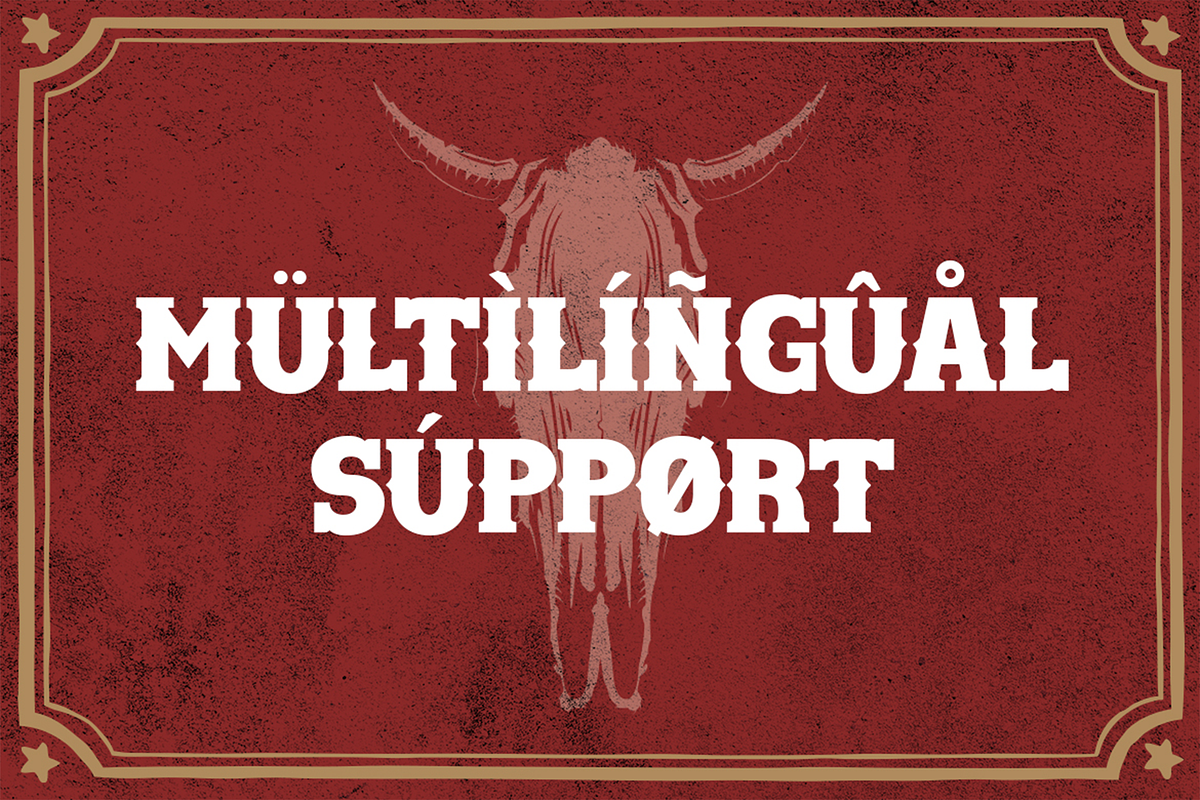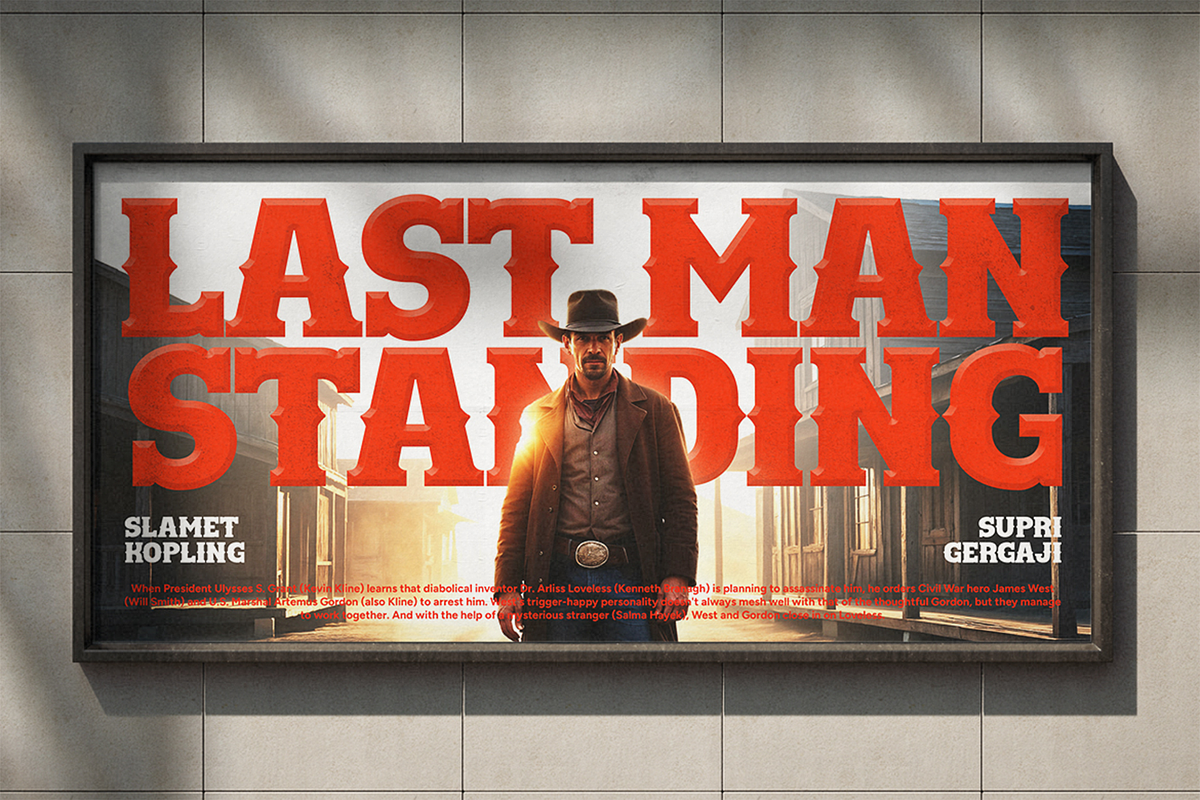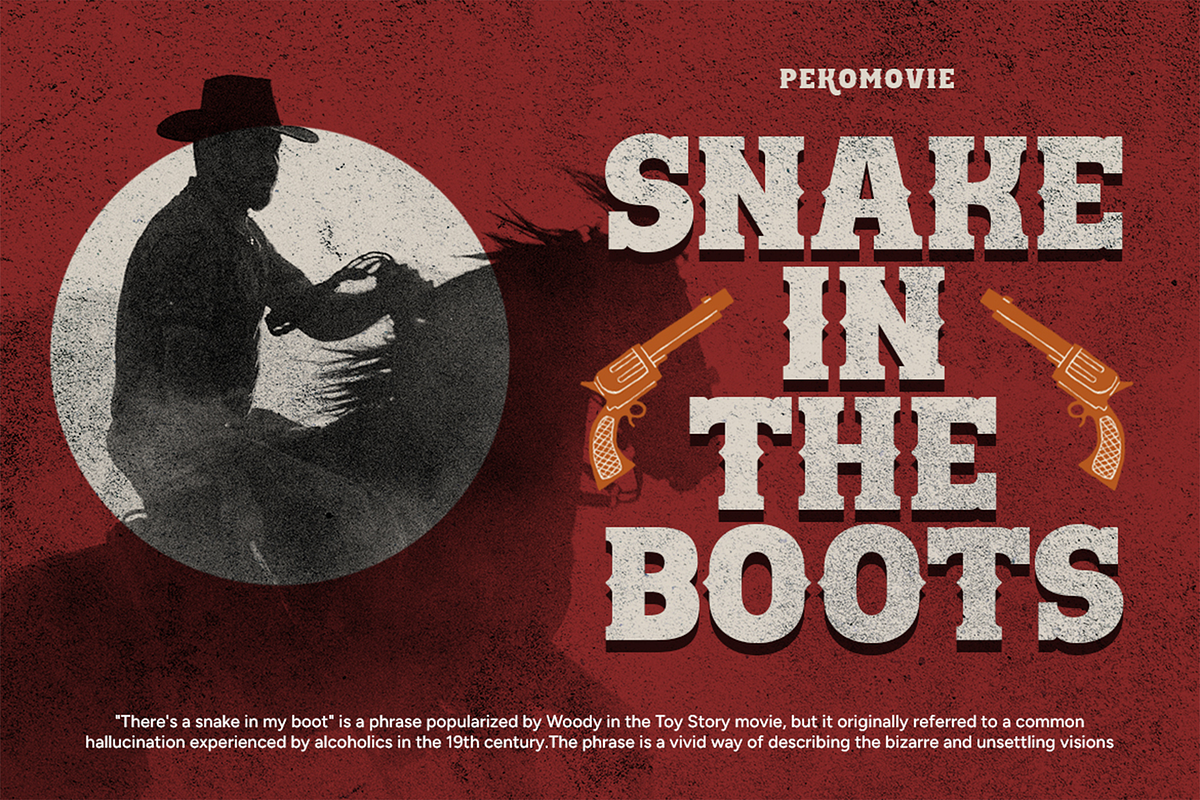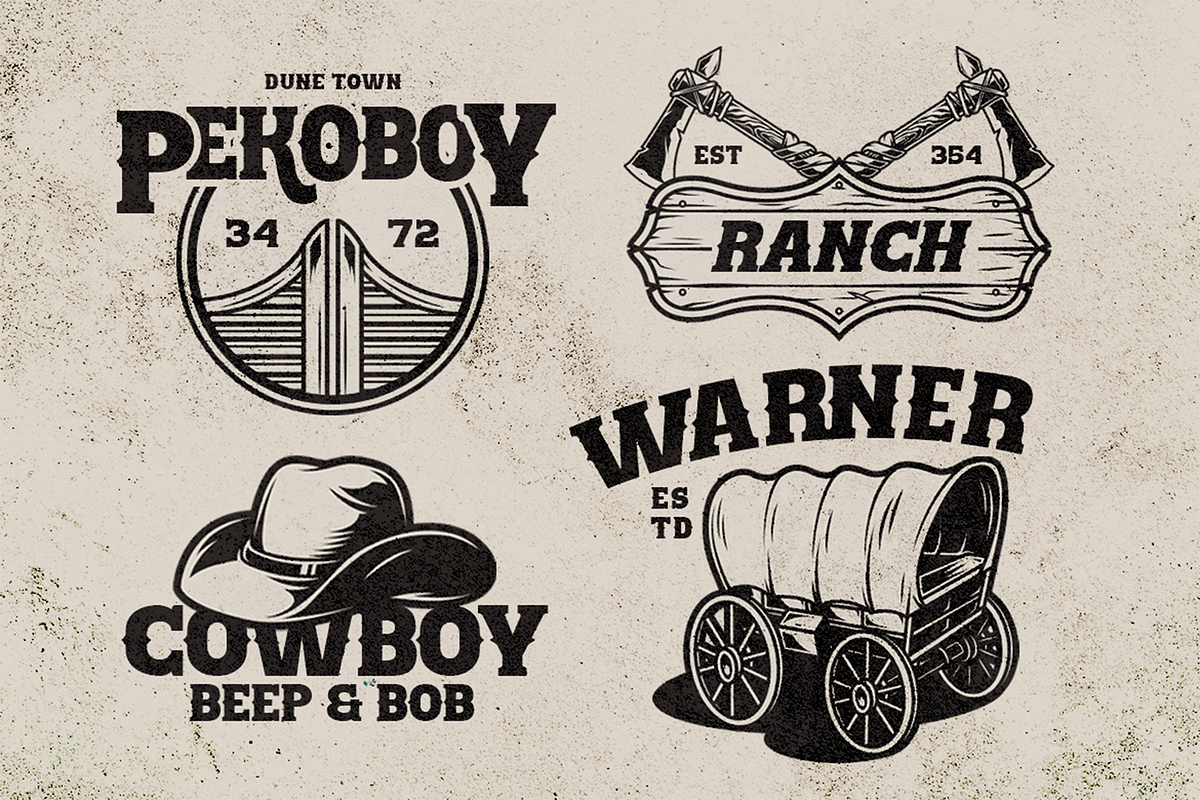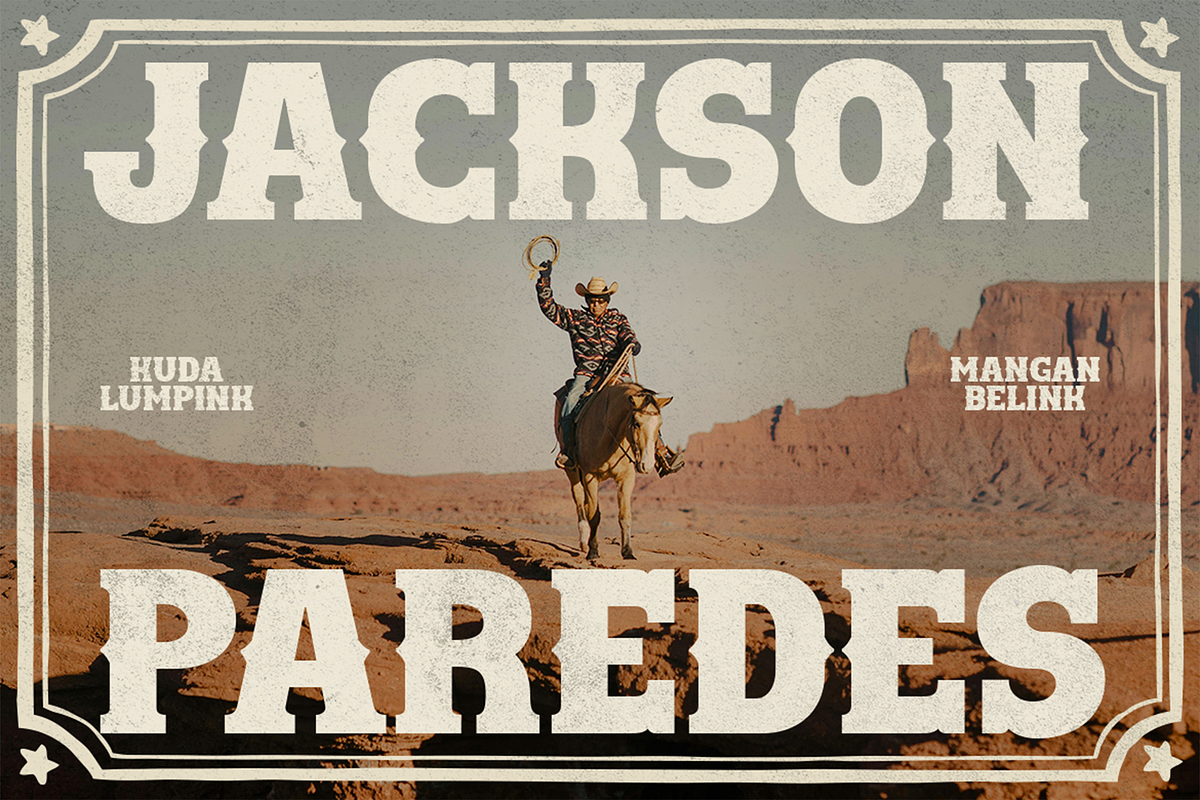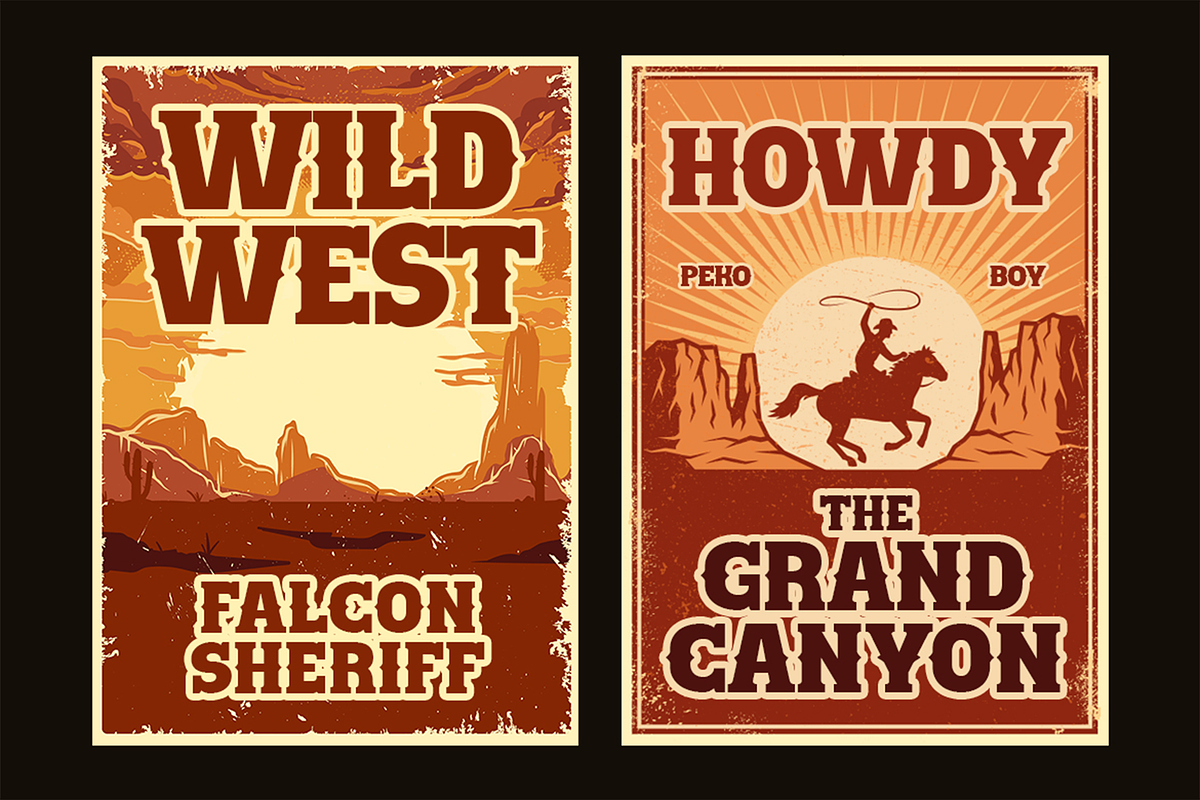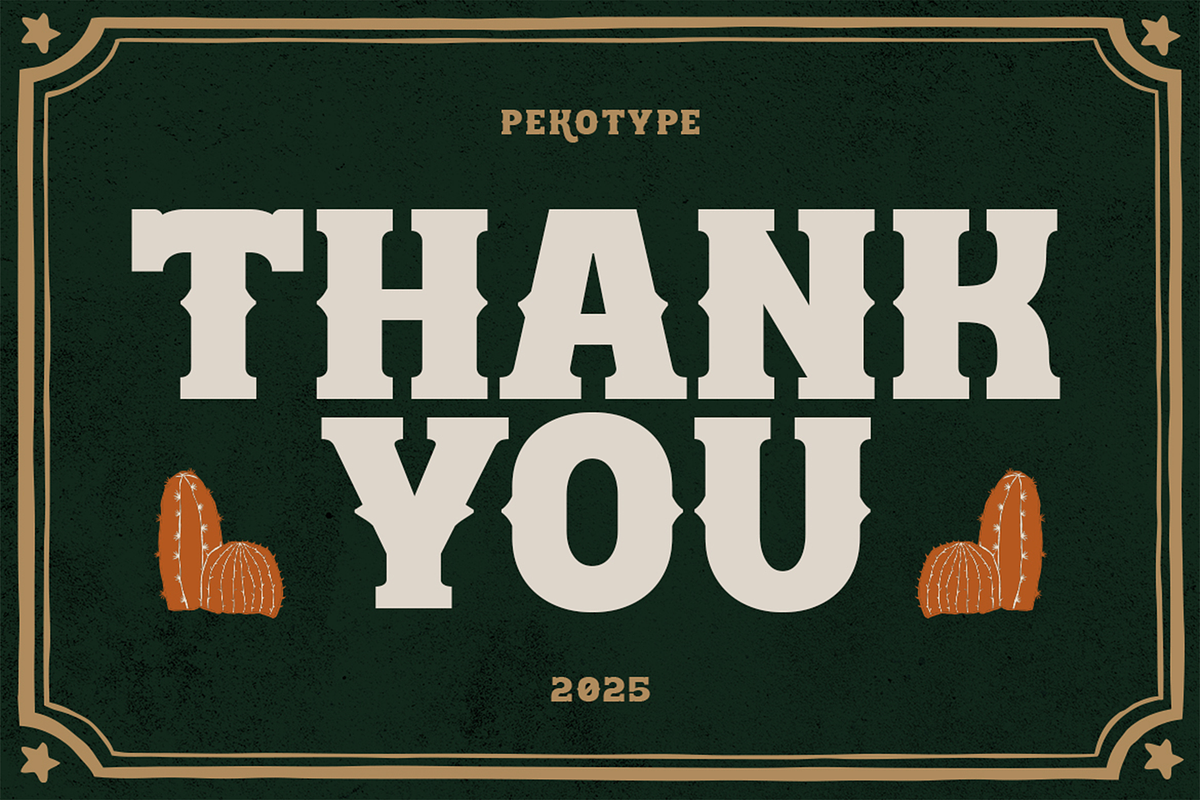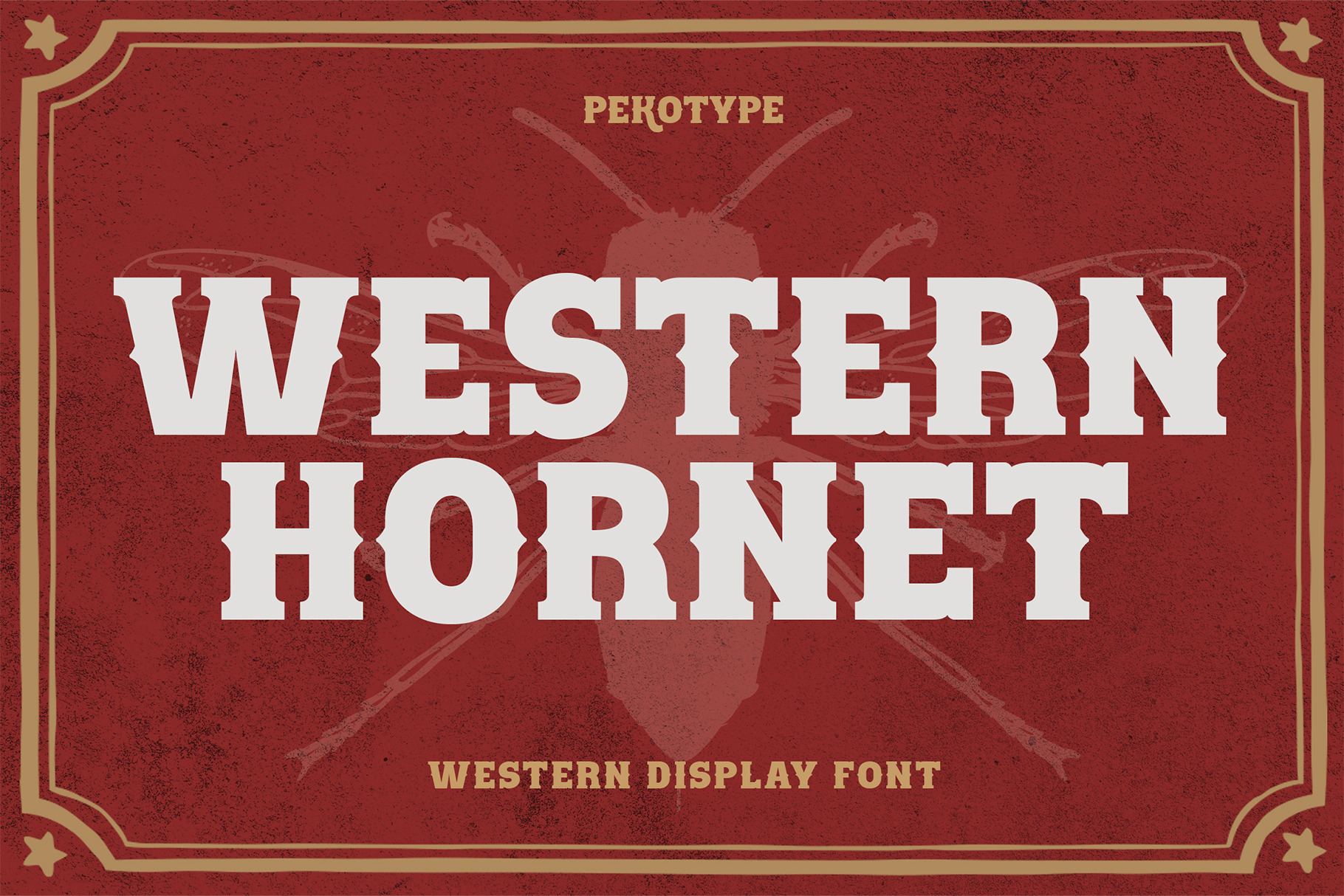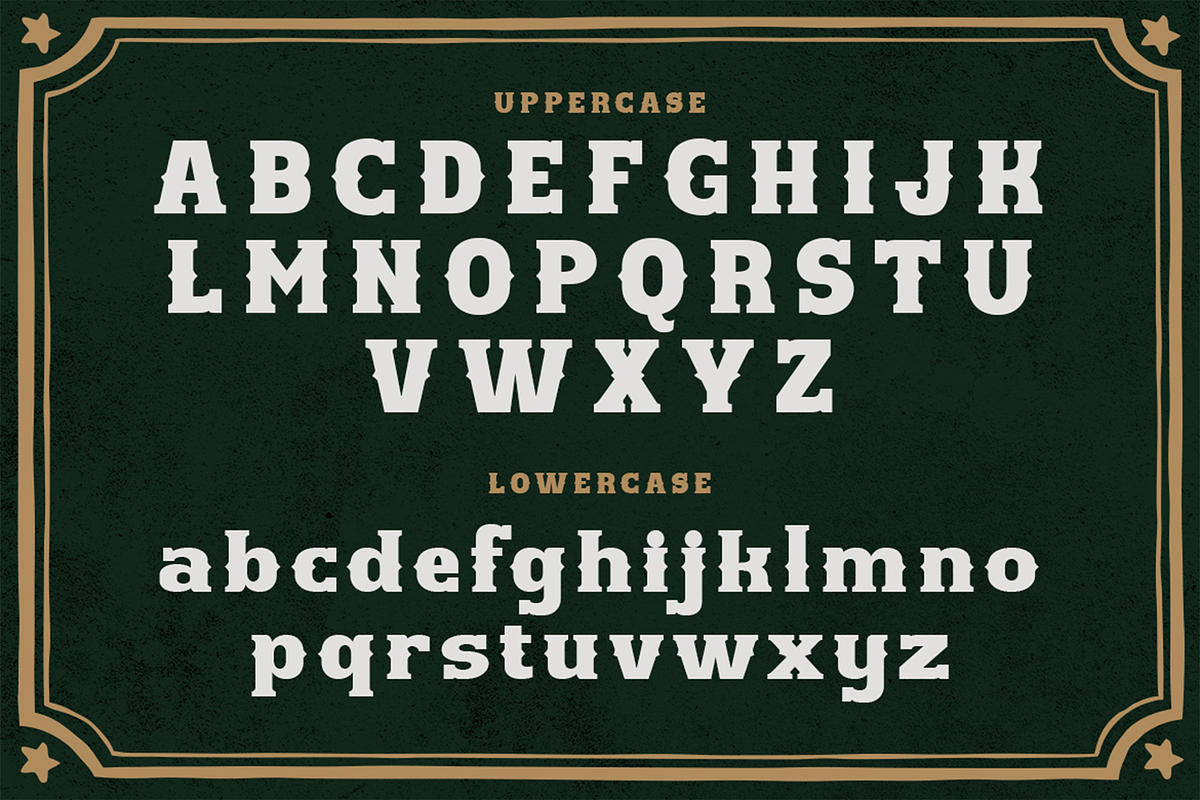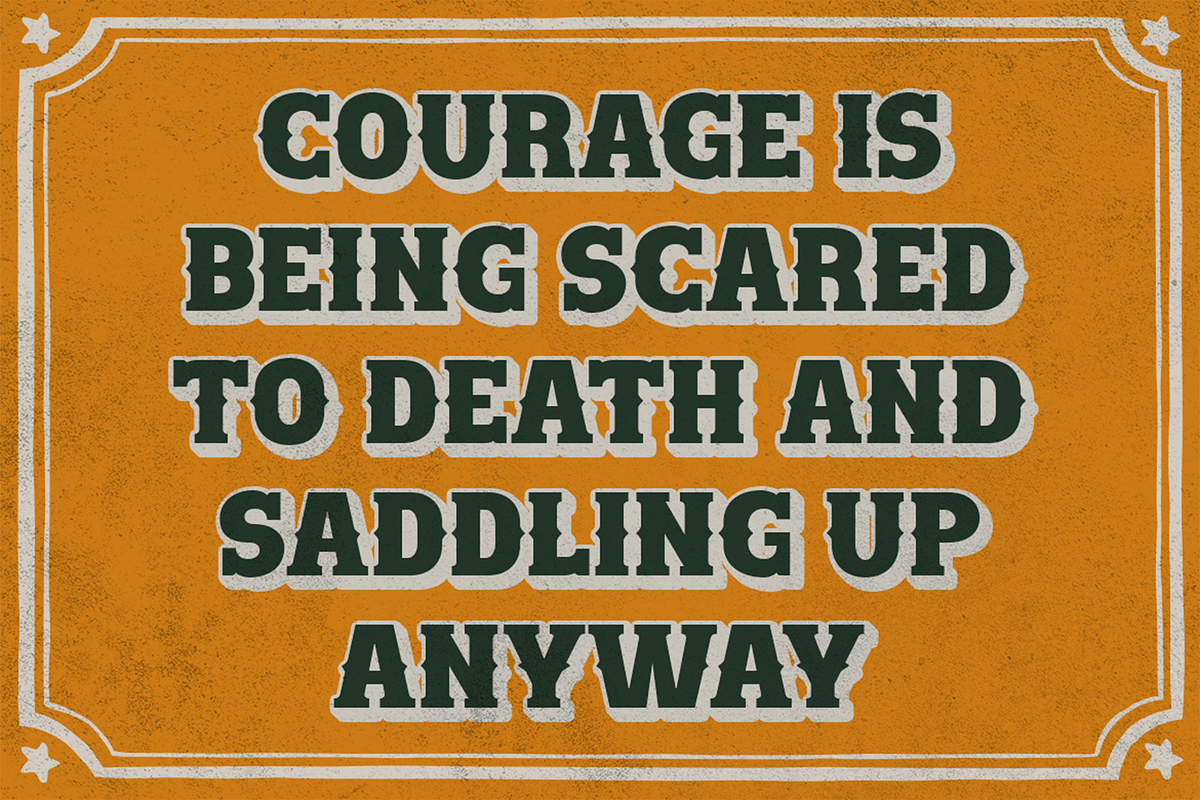
Western Hornet - Display Font
WESTERN HORNET – Bold Western Vintage Slab Serif Font
Saddle up with WESTERN HORNET, a bold western display font with a modern vintage twist. Inspired by classic Americana and cowboy-era posters, this typeface combines rugged slab serif details with a fresh, contemporary edge. Whether you're designing for branding, logo projects, movie posters, or promotional media, WESTERN HORNET brings a strong, standout presence to every design.
Crafted with both uppercase and lowercase letters, this versatile font is perfect for print media, product packaging, signage, apparel, and social media graphics. Its striking boldness and western spirit make it ideal for everything from retro rodeo themes to modern rustic branding.
- Number, symbol, & punctuation
- Perfect for headlines, logos, posters, and more
Give your designs a wild, bold identity with WESTERN HORNET